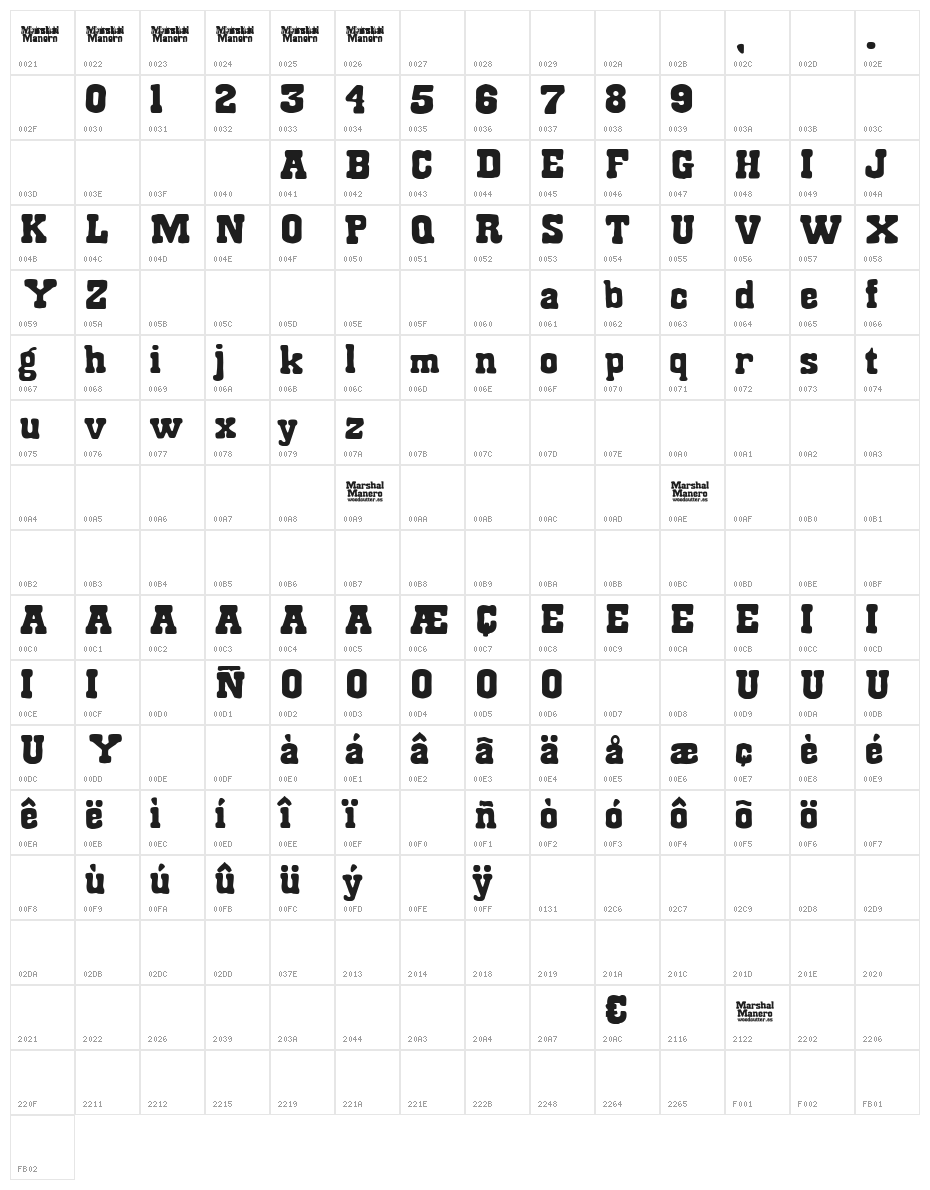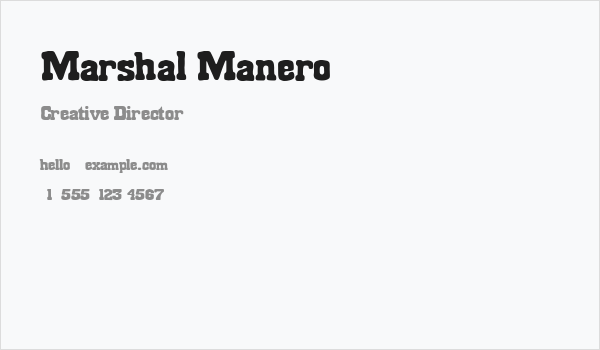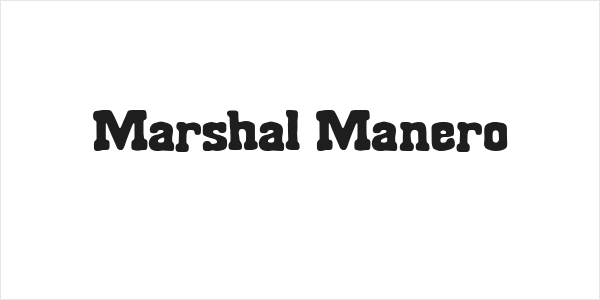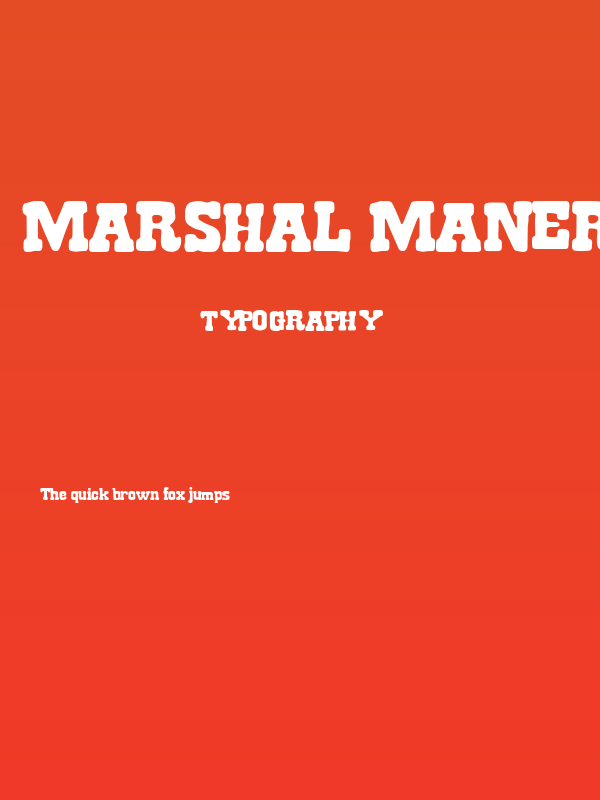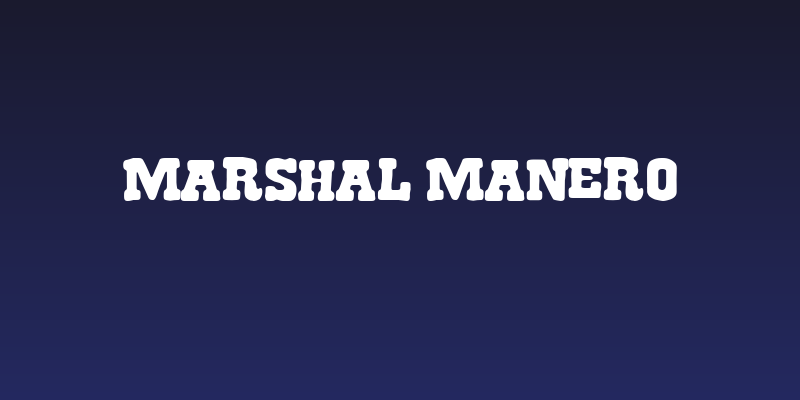
Marshal Manero Description
This font features a bold and robust design with thick, rounded strokes that give it a strong and impactful presence. The characters are uniformly wide, creating a sense of stability and balance. The uppercase letters are particularly bold, with a slight curvature that adds a touch of softness to the otherwise solid structure. The lowercase letters maintain this boldness, ensuring consistency across the typeface. The numbers are equally bold, making them stand out clearly. This font's design is reminiscent of vintage Western styles, with a modern twist that makes it versatile for various applications.
Overall StyleVintage
Proposed ProjectsIdeal for branding, posters, signage, and any project requiring a strong, impactful typeface.